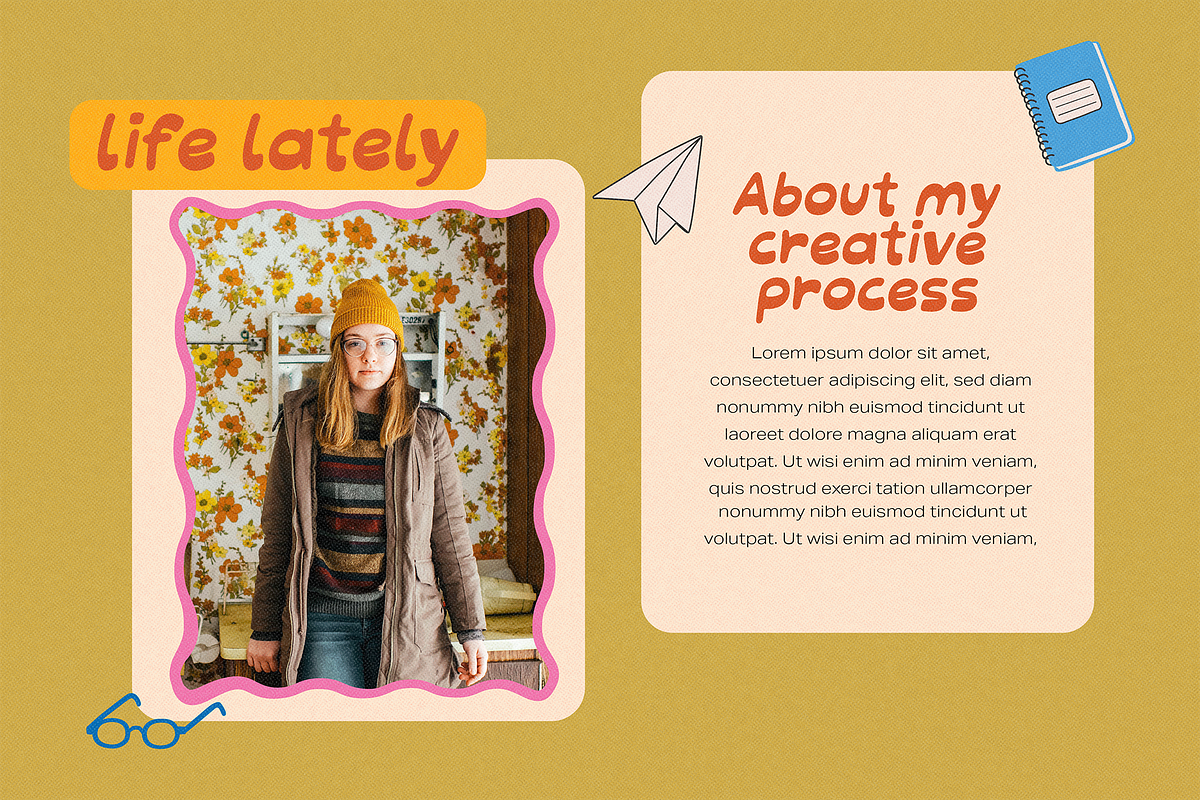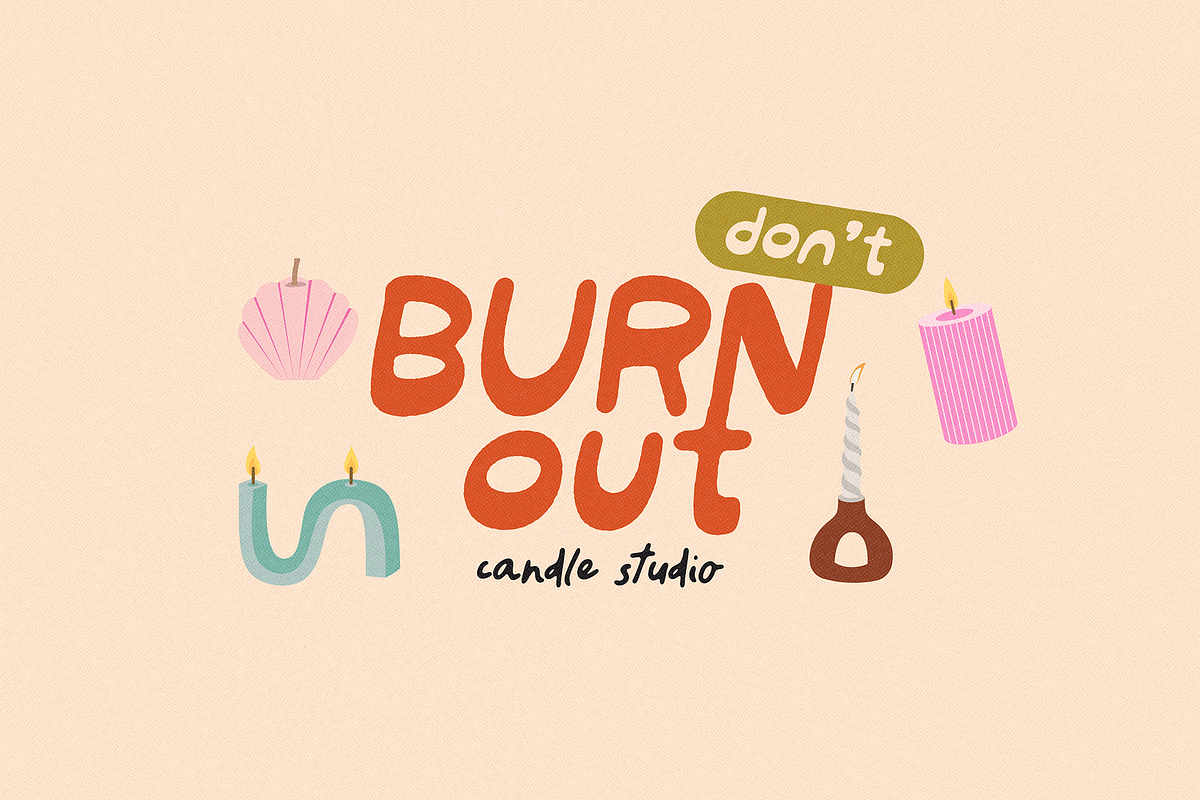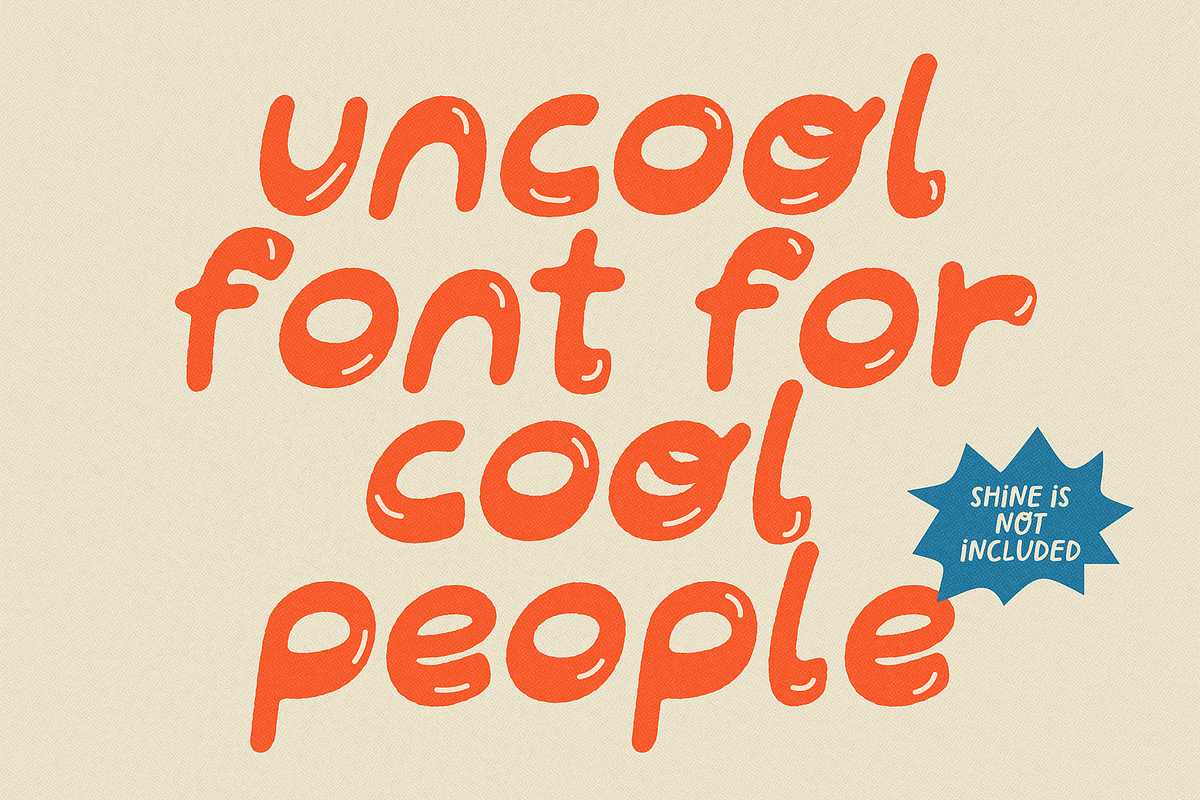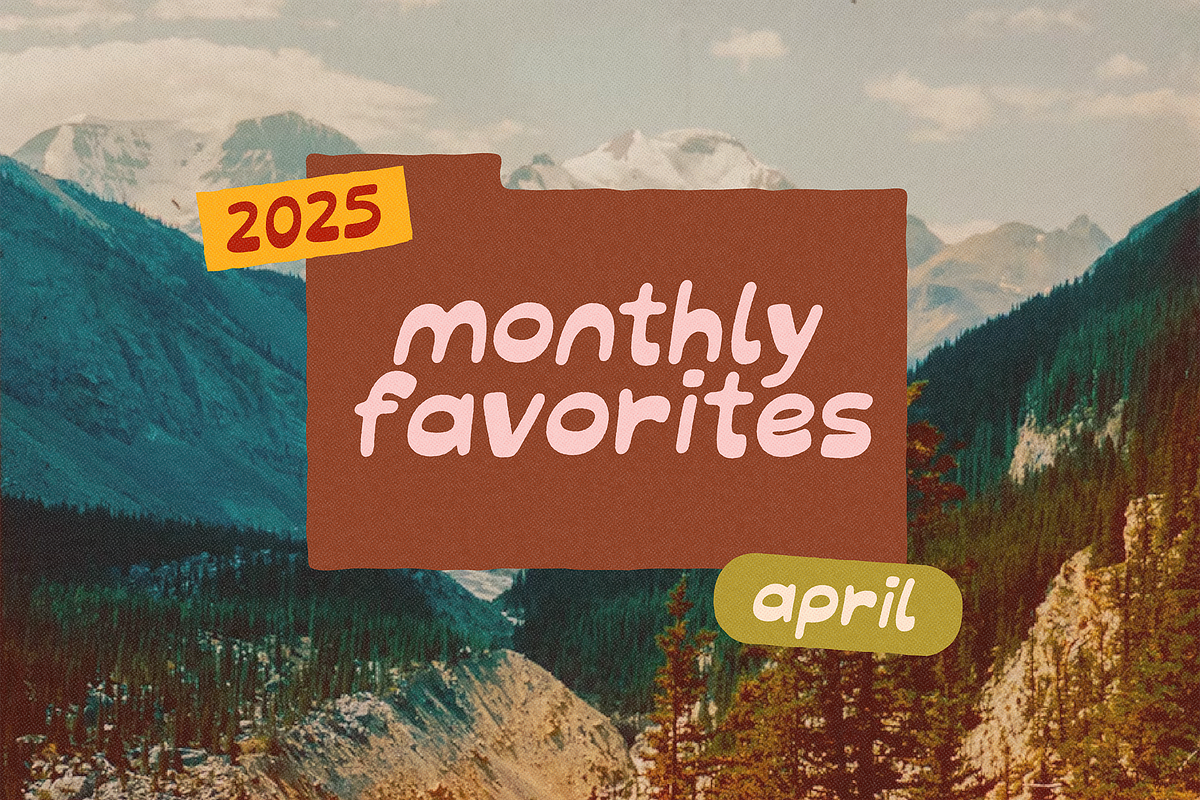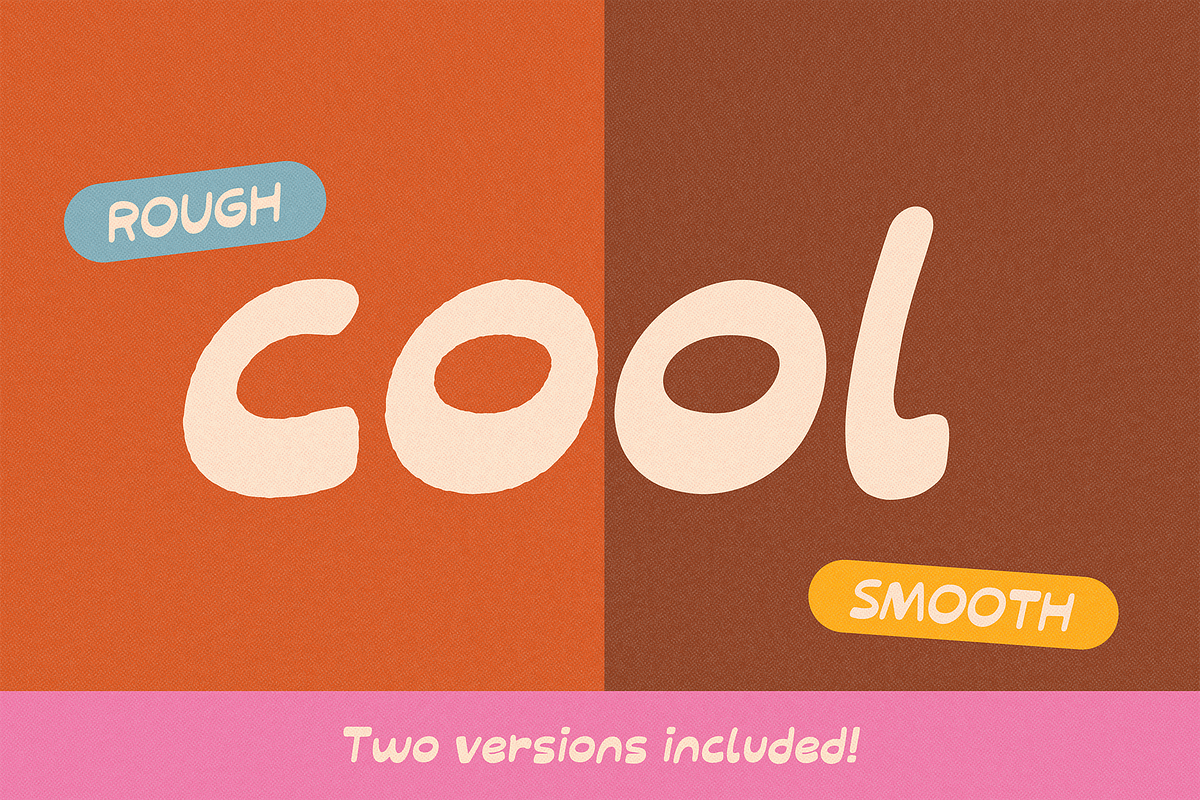
SECRET SUNRISE | COOL FONT
SECRET SUNRISE is a bold and playful display font, handcrafted with a fresh and slightly irregular touch — perfect for adding personality and energy to your creative projects.
Its unique boldness sits at the bottom of each letter, giving it an informal feel that’s still stylish and fun. It’s ideal for short text, headlines, branding elements, or anything that needs a bold statement without feeling heavy.
It comes in two styles:
- Smooth: clean and a bit more polished — great for a softer or slightly more formal look.
- Rough: a more “rebellious”, distressed version with extra handmade character!
Whether you’re designing quotes, stickers, t-shirts, packaging, or social media graphics, this font brings a cool, casual vibe without going over the top.
✷ SECRET SUNRISE also includes 5 alternate characters (m, n, o, f, t) to give your designs a custom and special touch!
- Left curly bracket { – alternate m
- Right curly bracket } – alternate n
- Logical not ¬ – alternate o
- Greater equal ≥ – alternate f
- Less equal ≤ – alternate t